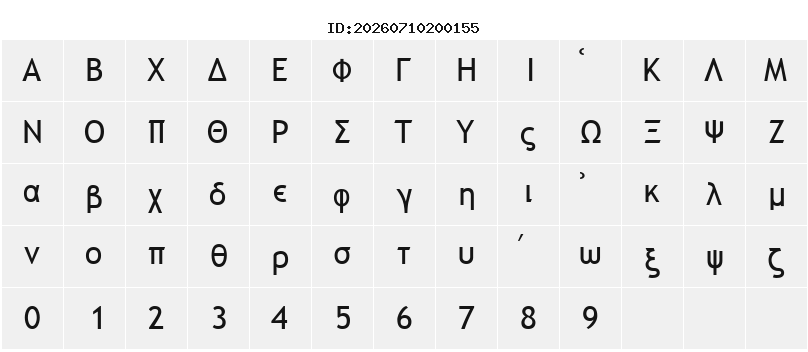
• Font Name: Galilee
• Designer: Rodney J. Decker
• Description: Koine Greek font using Latin keyboard. Designed to match the font metrics and general style of the Trebuchet font. (This is a beta release. Font has not yet been manually hinted or optimized for screen.)
Galilee.ttf is a modern, elegant sans-serif font designed for ultimate readability and visual harmony. Perfect for branding, headlines, web design, and print materials.